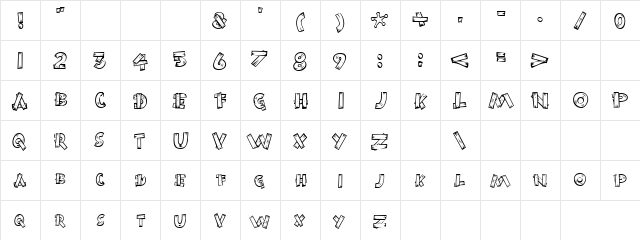
Naild Logs Regular Font Preview
Naild Logs Regular
Design Context for Naild Logs Typeface
Naild Logs is a composed and adaptable typeface that performs quietly and consistently across a wide range of design contexts.